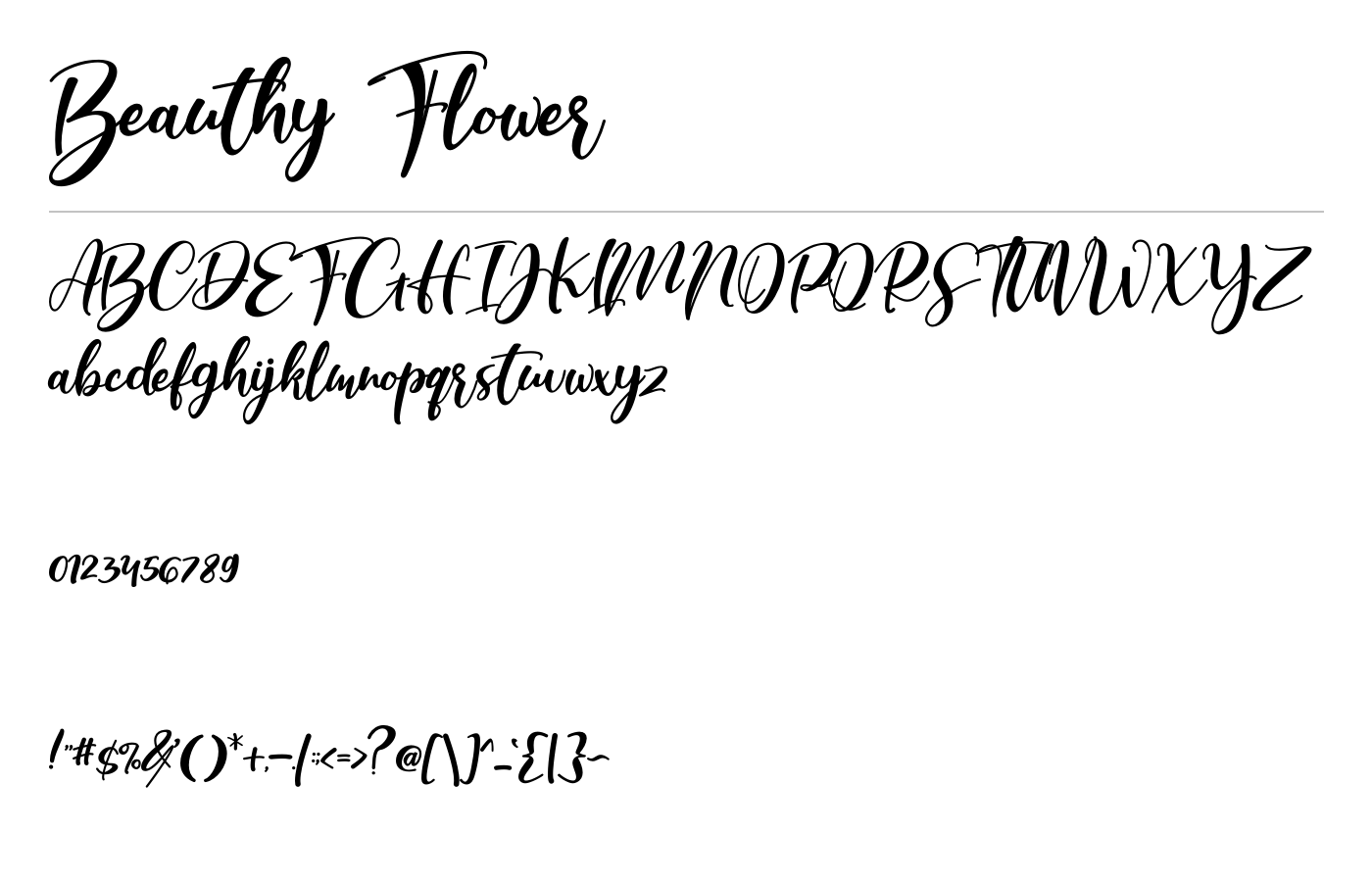
Beauthy Flower is an elegant, modern script font with smooth, flowing strokes and a lively, handwritten feel. Its medium weight and slightly condensed letterforms create a balanced and graceful appearance, ideal for adding a personal, stylish touch to branding, invitations, and packaging. This font works beautifully in logos and headlines where a feminine and sophisticated vibe is desired.
Beauthy Flower Font